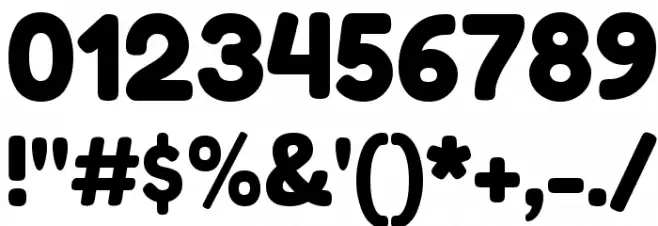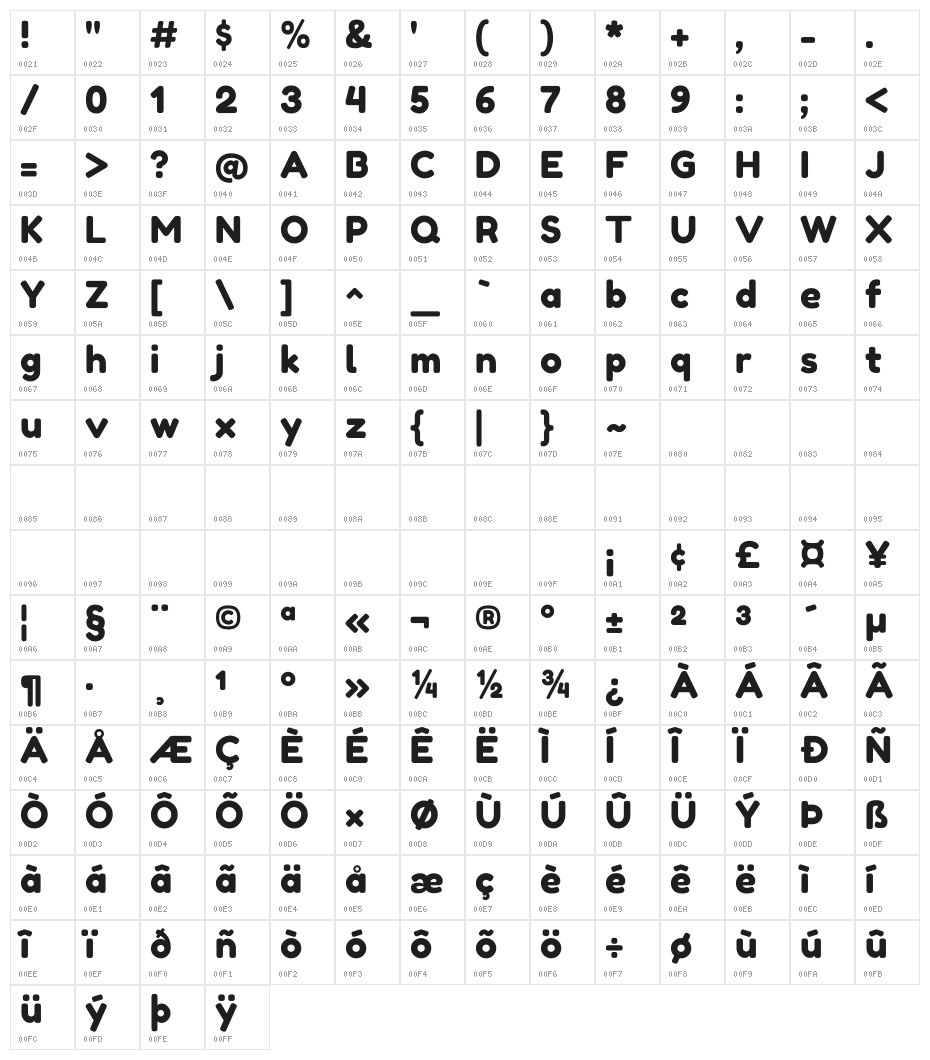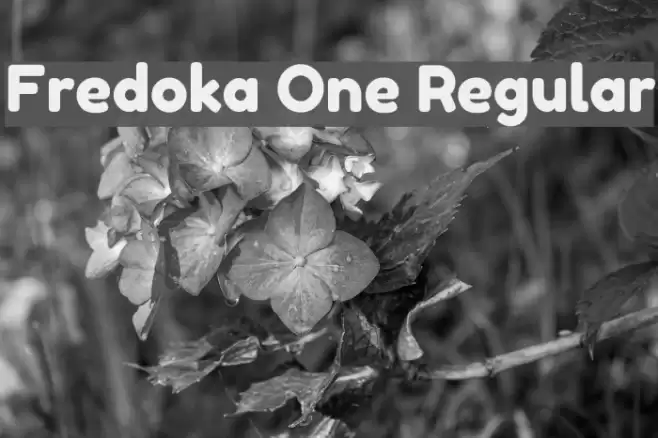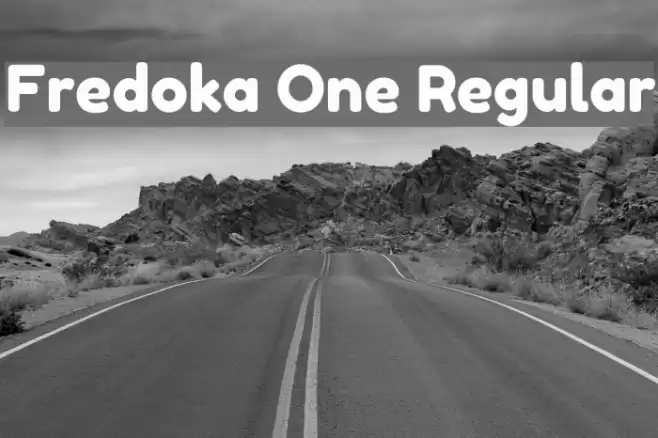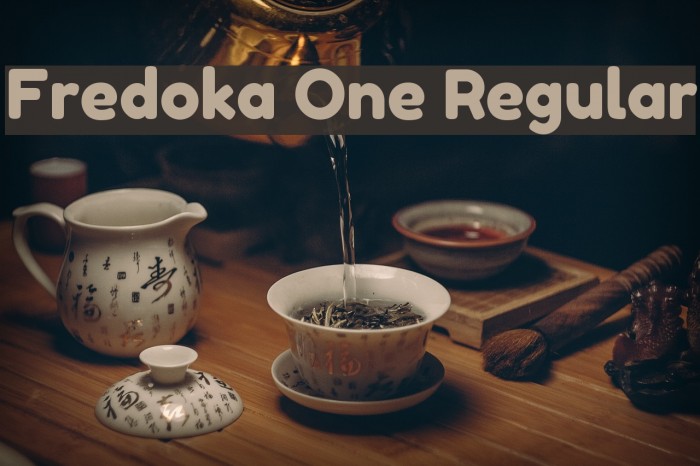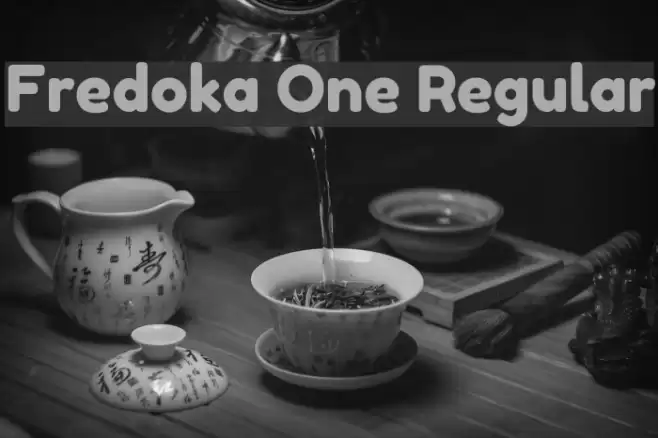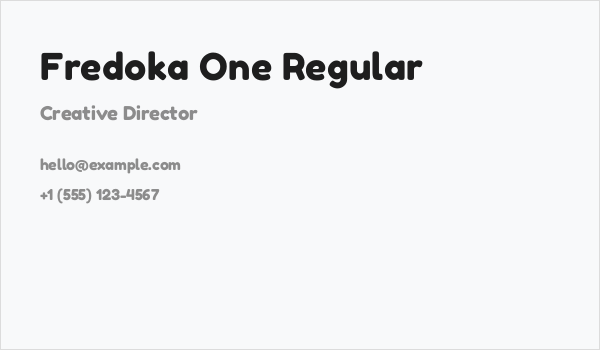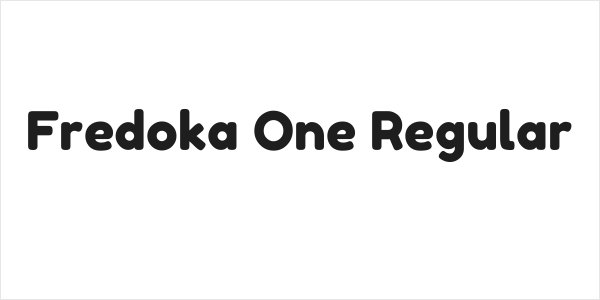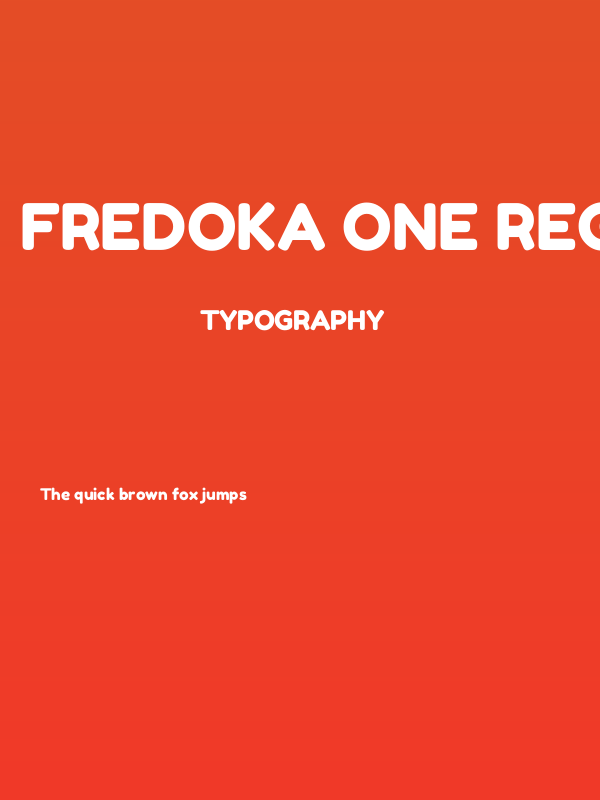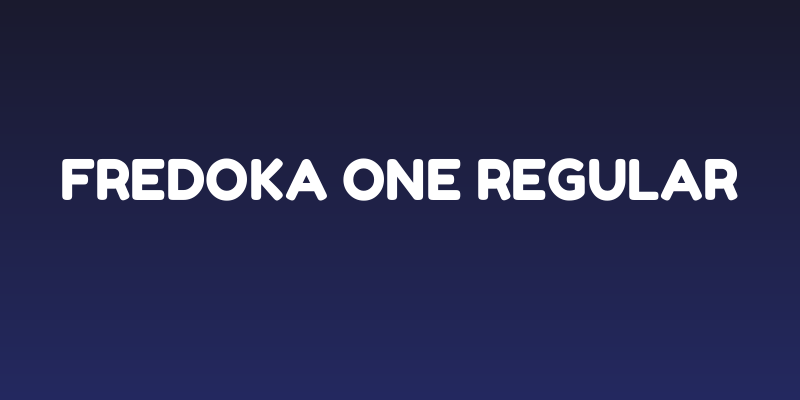
Fredoka One Regular Font
Fredoka One Regular Description
This font features a playful and rounded design, characterized by its bold and friendly appearance. The letters are thick and have a uniform stroke width, giving it a modern and approachable feel. The rounded edges and smooth curves contribute to its inviting and informal style, making it suitable for a variety of creative projects. The numerals and special characters maintain the same rounded and bold characteristics, ensuring consistency across all glyphs. This font is ideal for projects that require a fun and engaging look, such as children's books, playful branding, or casual digital content.
| Proposed Projects | Children's books, playful branding, casual digital content, posters, and social media graphics. |